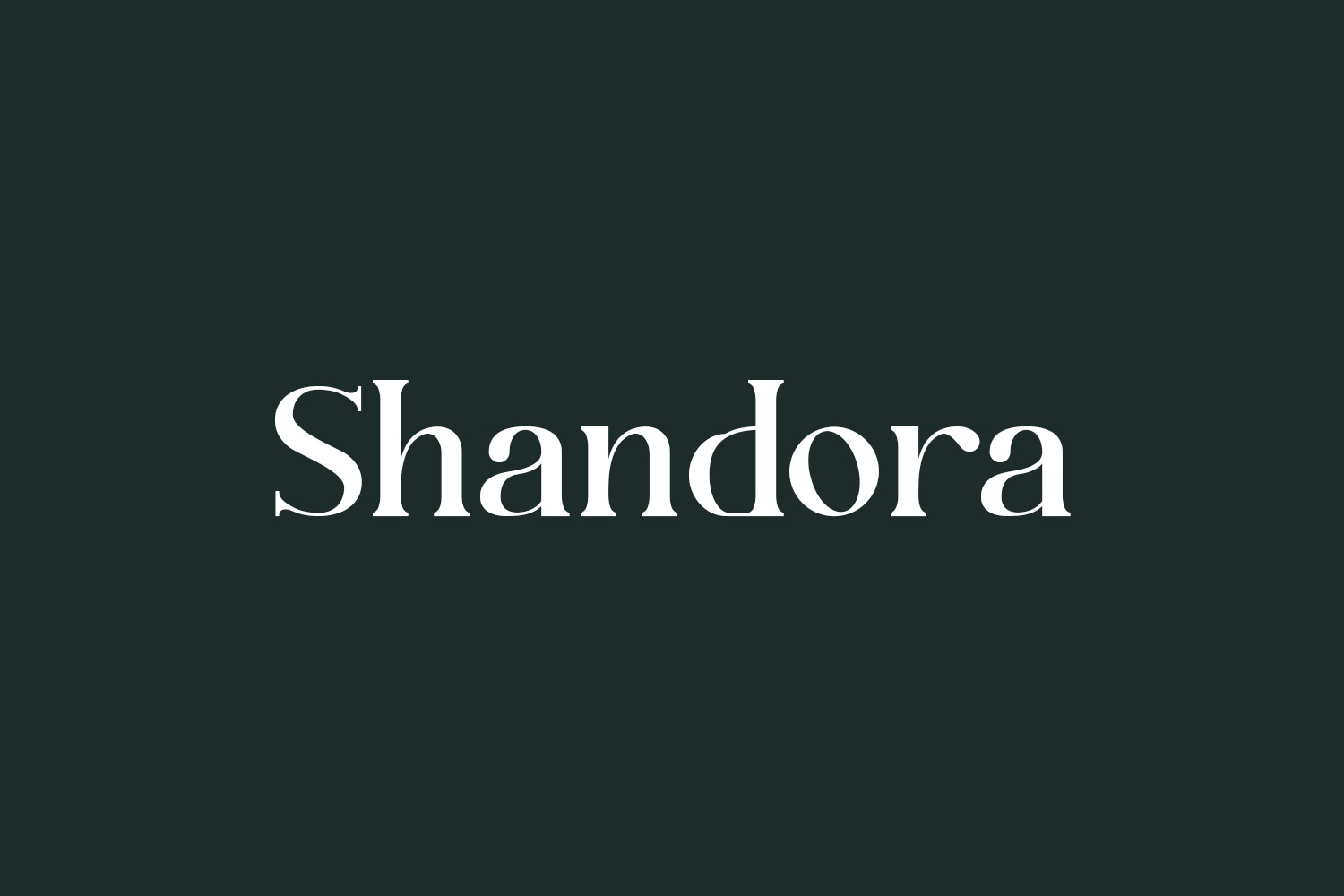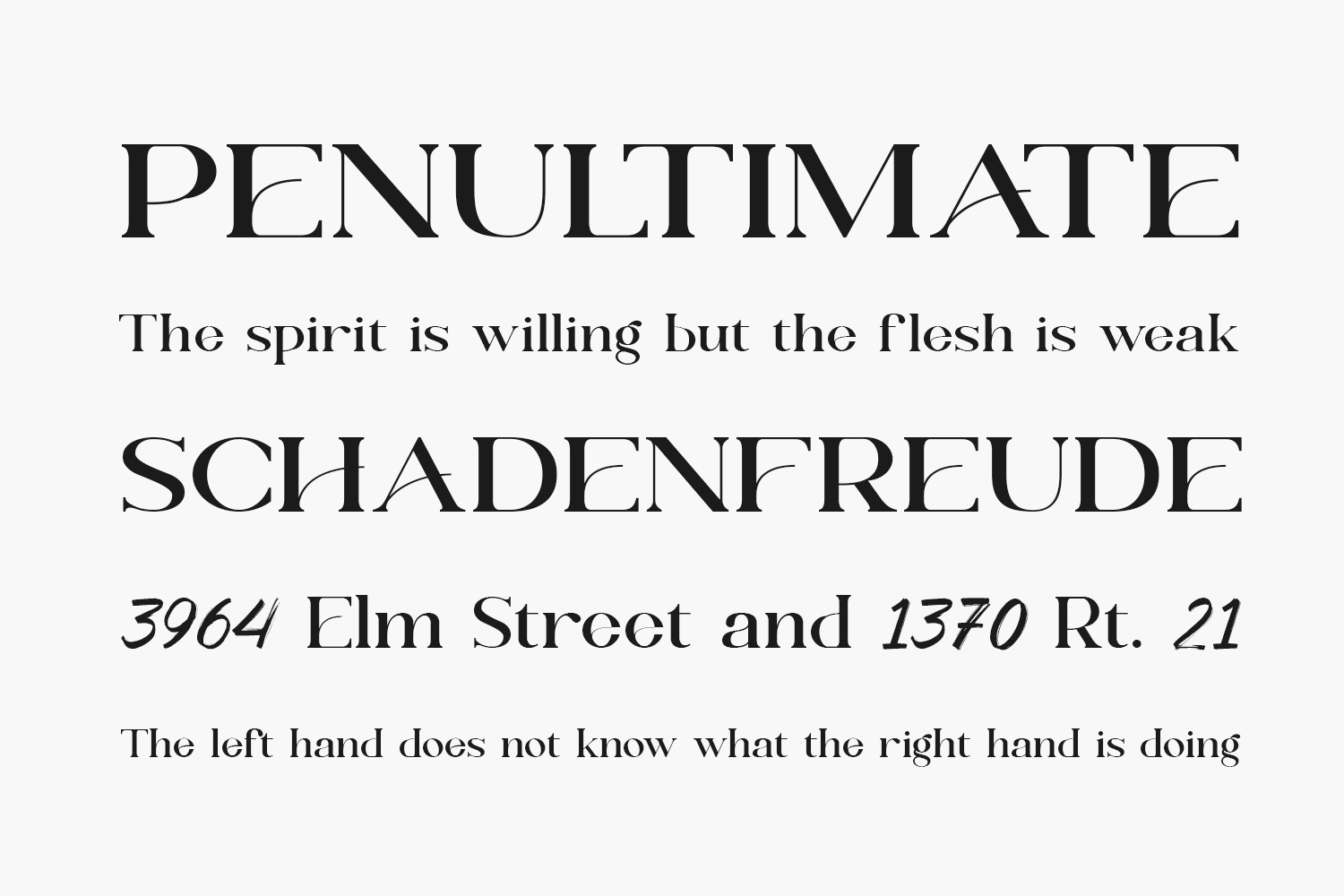
Shandora Free Font Family is a bold and distinct-looking serif font. It has a classy, elegant, and modern look that can be used for logos, branding, invitations, stationery, wedding designs, social media posts, and much more. Shandora Free Font was designed by Vilogsign is a demo and free for personal use only. Please purchase the full version for commercial use.